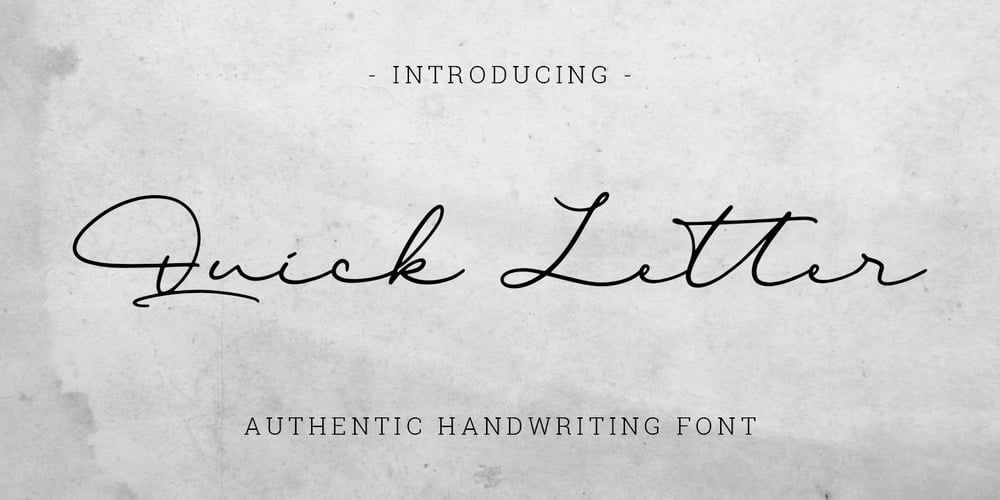
Quick Letter Font Family was designed by Abdul Malik Wisnu and published by Almarkha Type. Quick Letter contains 1 styles and family package options. Introducing Quick Letter – Authentic Handwritten Ligature Script is a Quality script that is written casually and quickly has many alternative letters, with a front and back tail that adds to a more attractive appearance.Quick Letter is perfect for homeware designs,branding projects, Logo, design, Quotes, Product packaging, Photography, Watermark.